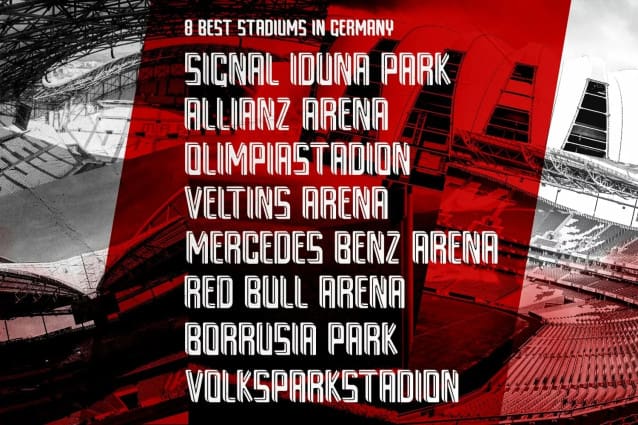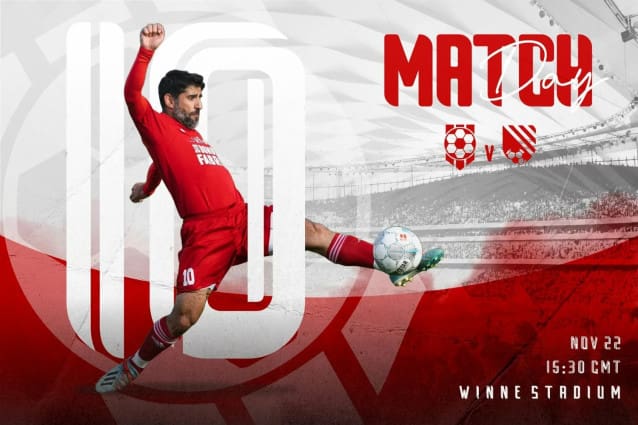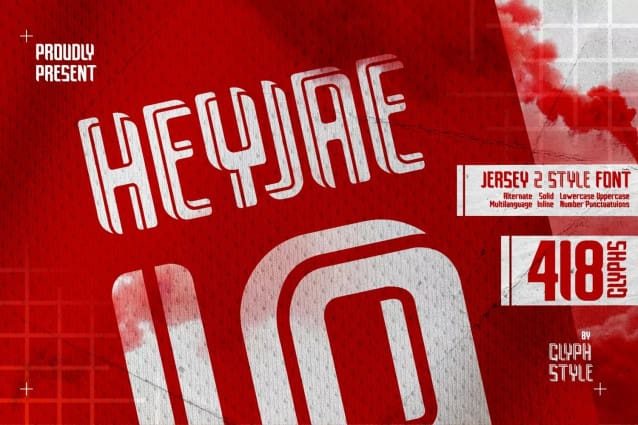
Heyjae Display Font
Heyjae Display Font is a sans serif display font, with a sports theme commonly found in jersey designs or other football themes. Available in 2 styles, inline and regular or solid
Heyjae is perfect for branding projects, logos, wedding designs, social media posts, advertisements, product packaging, product designs, labels, photography, watermarks, invitations, stationery, and any project that requires a sense of jersey/sport font.